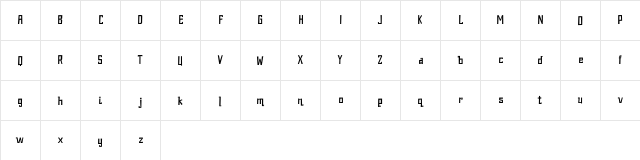
BrightFriday Regular
Design Context for BrightFriday Typeface
BrightFriday takes a measured approach to typography — its balanced proportions and neutral character make it a reliable workhorse for both digital and print work.